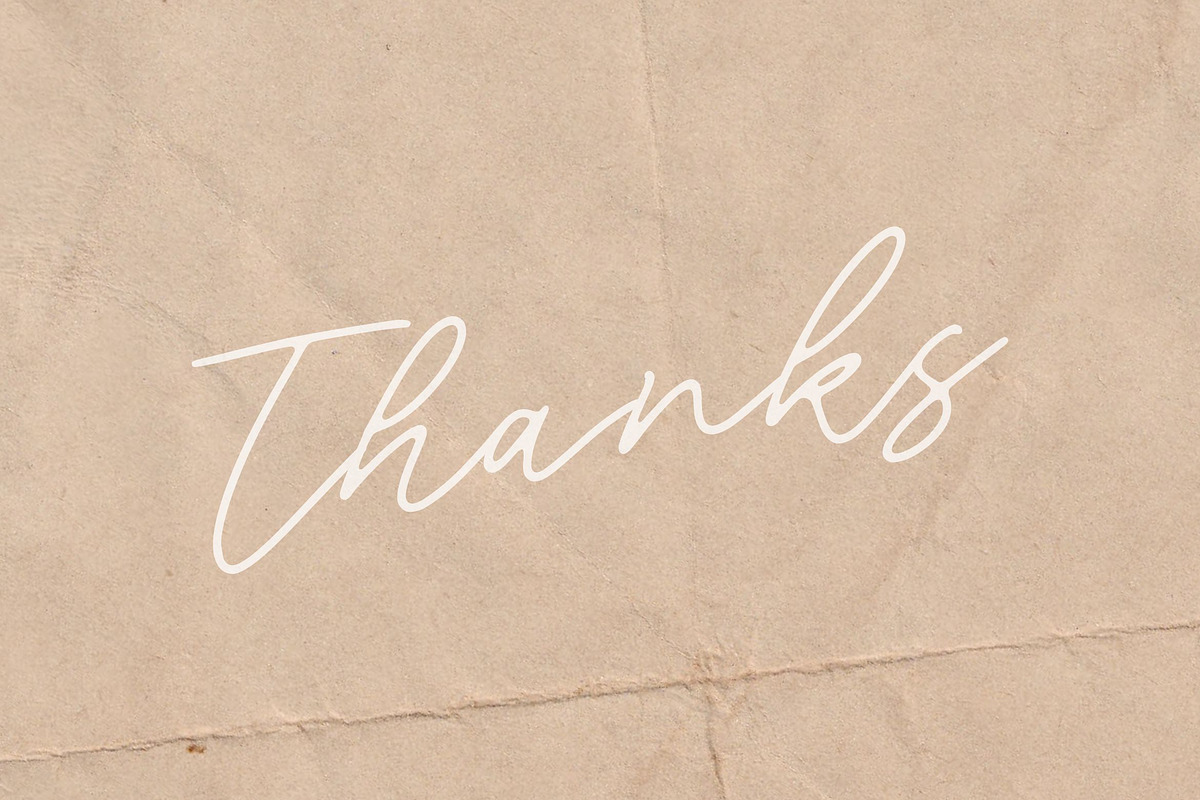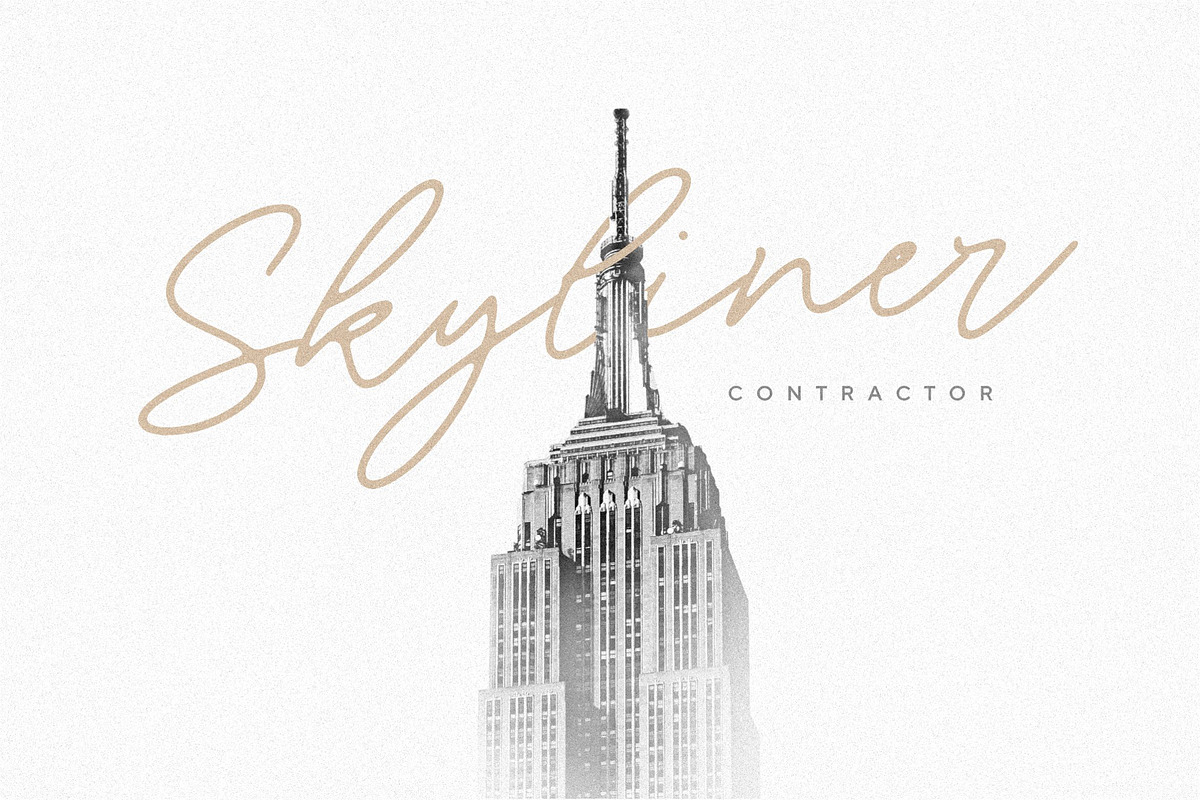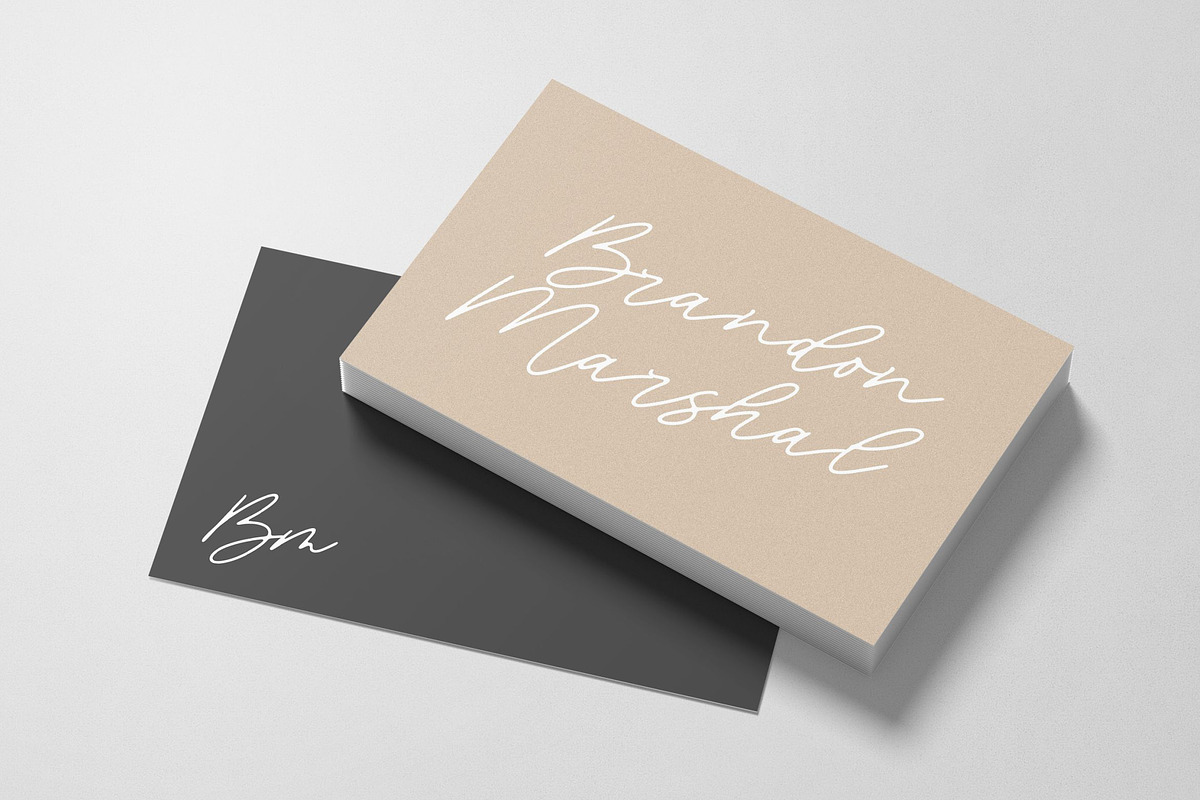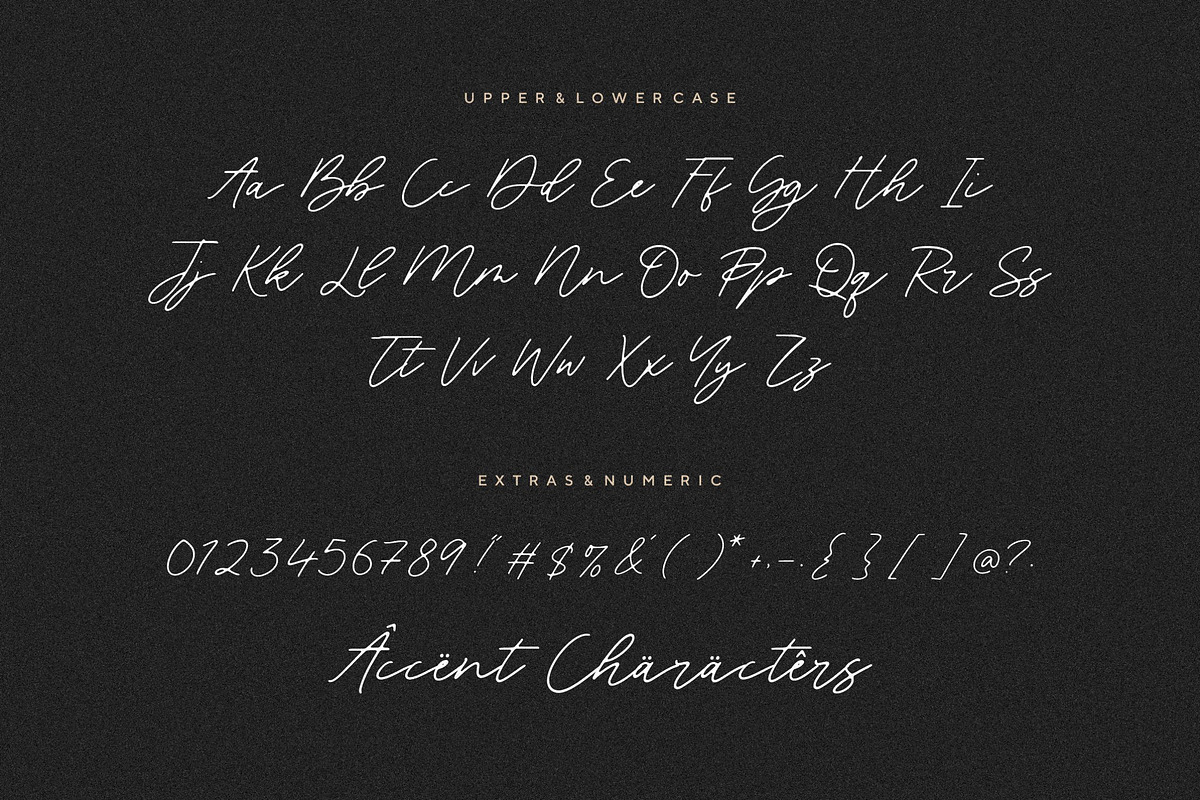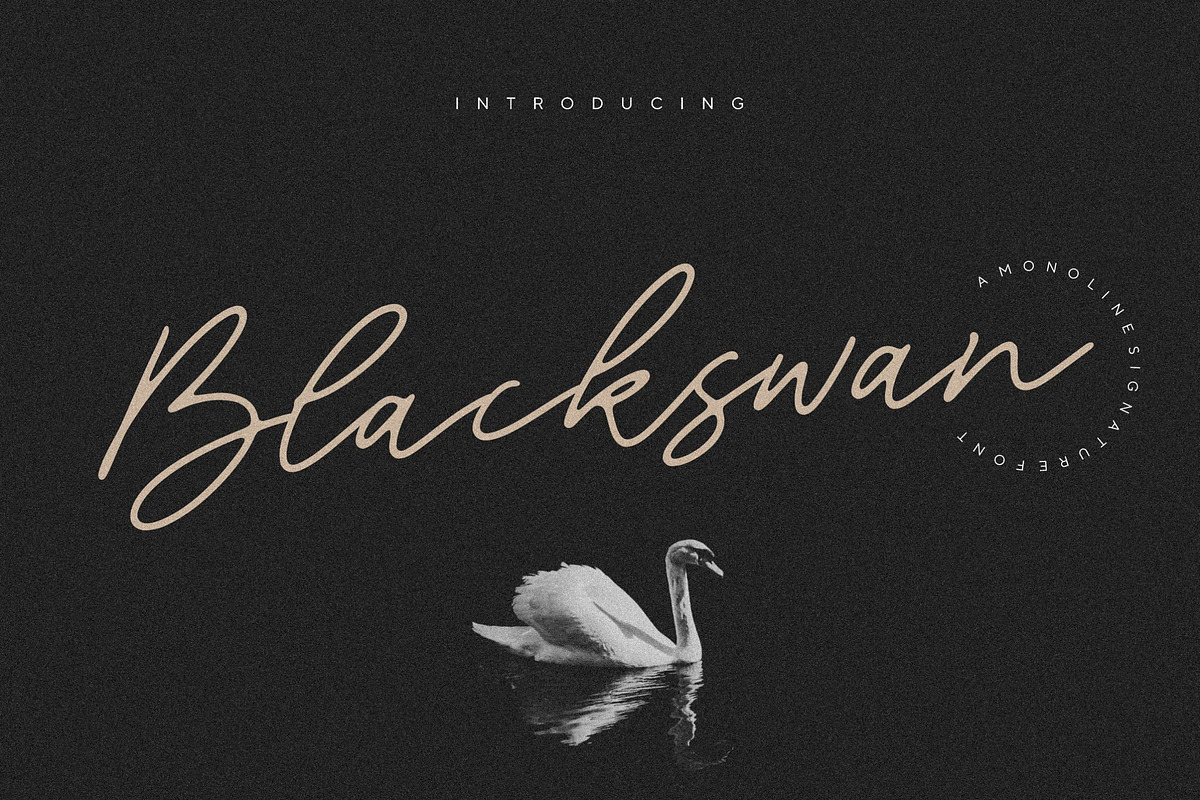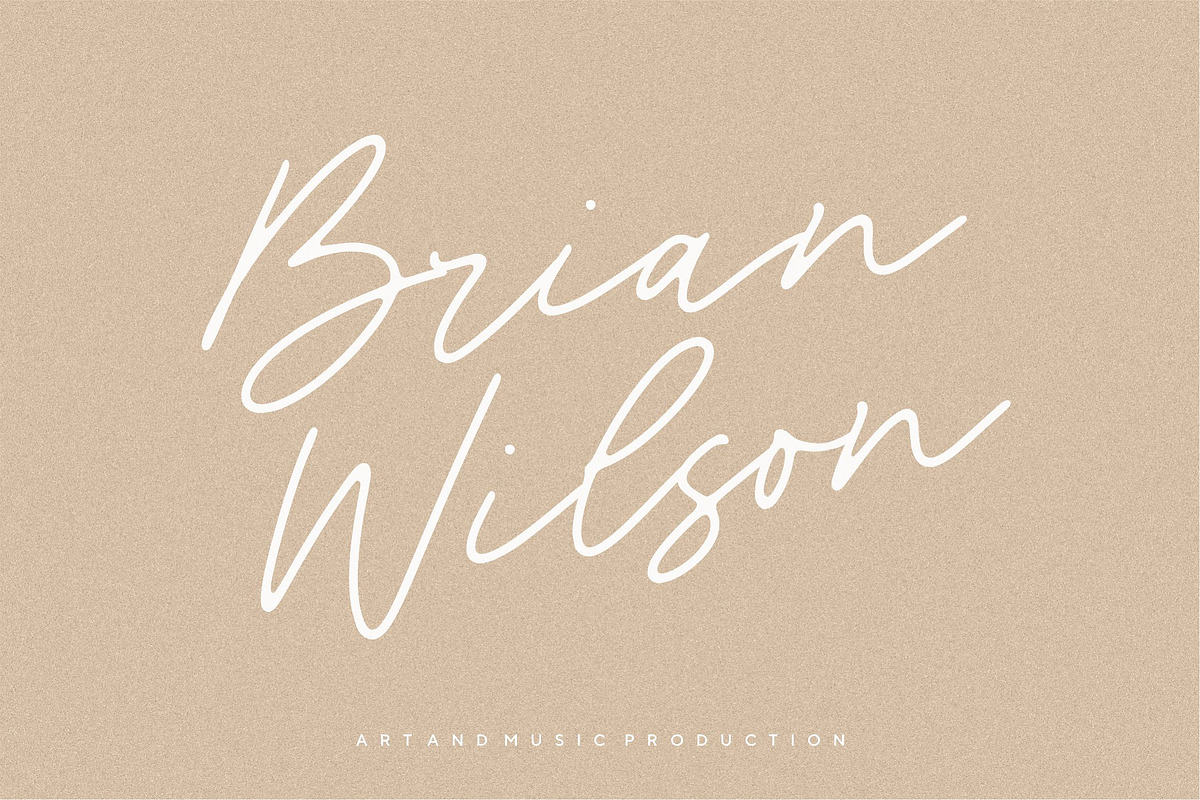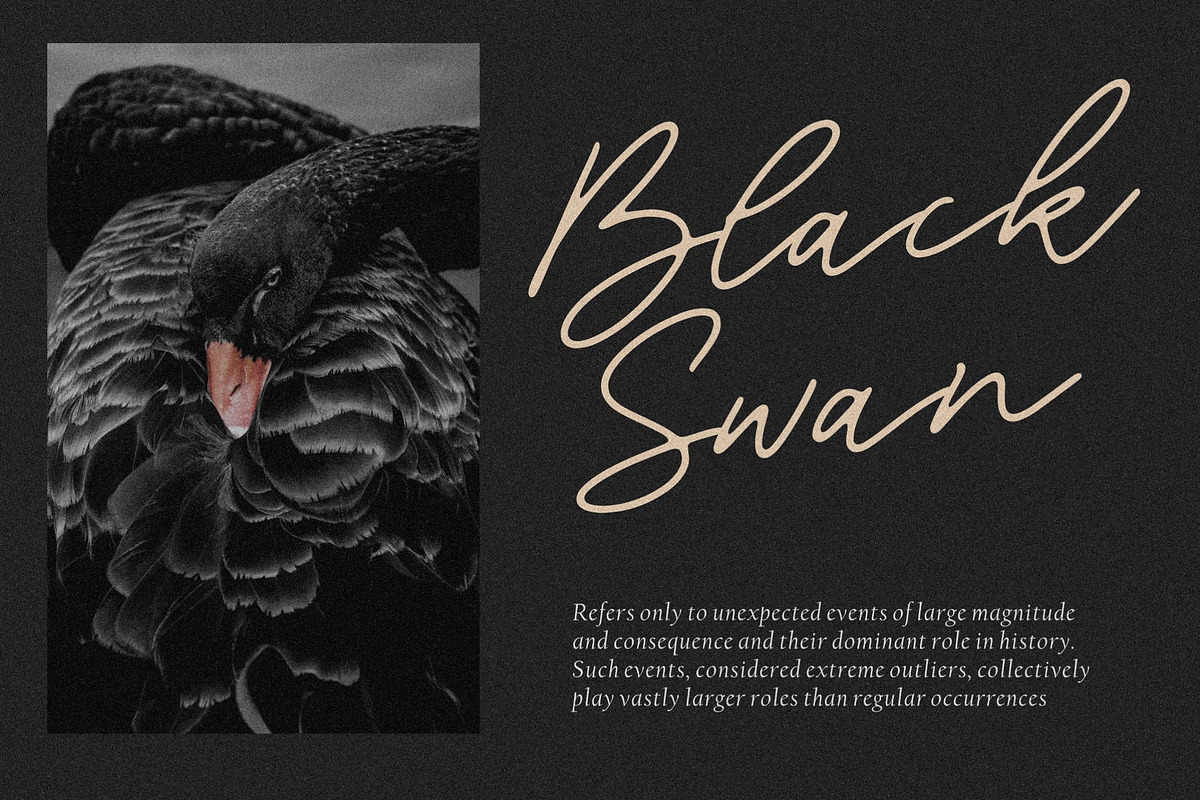
Blackswan - Monoline Signature Font
Introducing by Letterative Studio
Blackswan is a Monoline Signature Font
Blackswan is an exquisite handwritten font, masterfully designed to become a true favorite. It maintains its classy calligraphic influences while feeling contemporary and fresh. Fall in love with it and bring your projects to the highest levels!